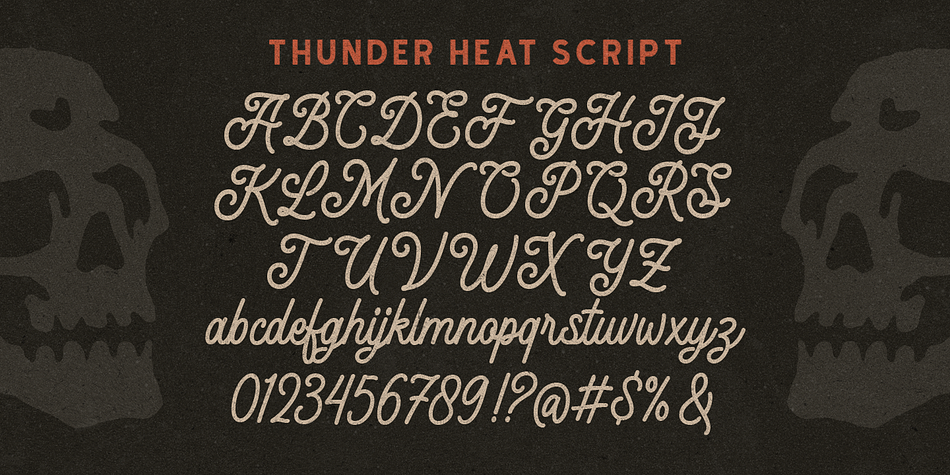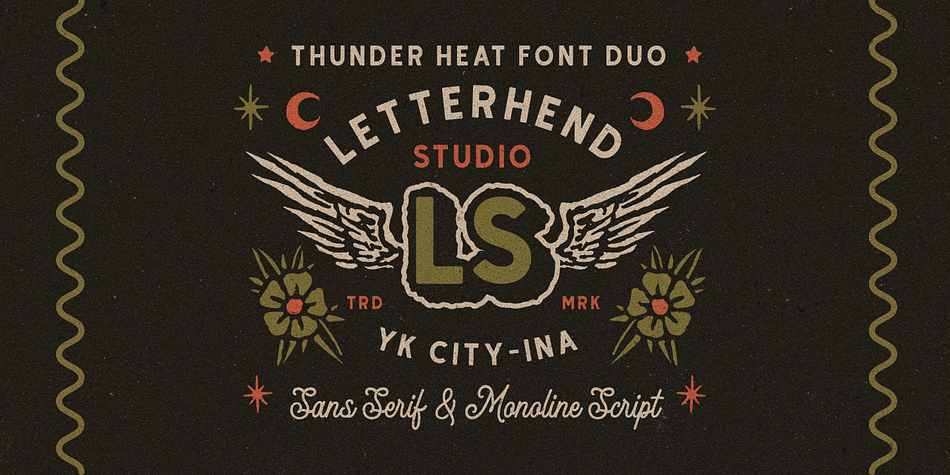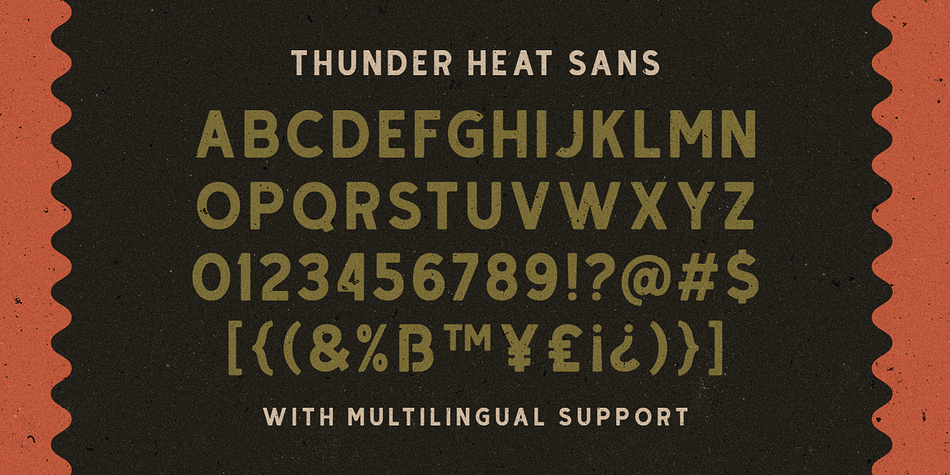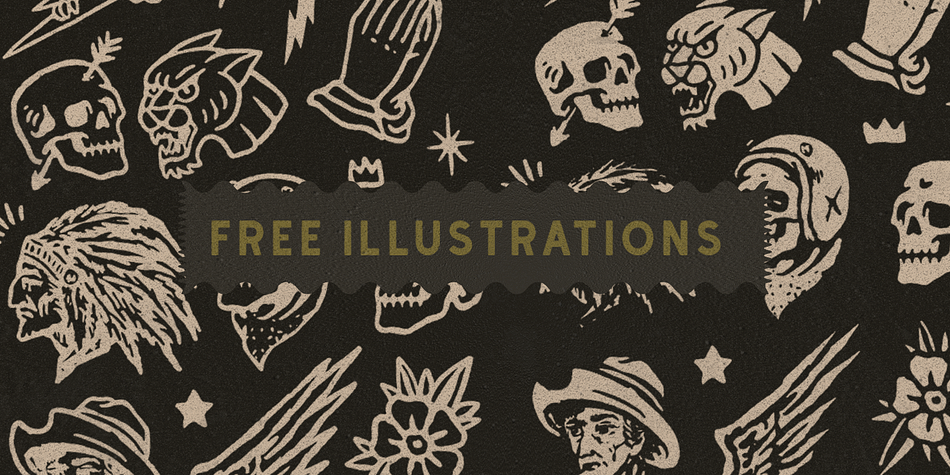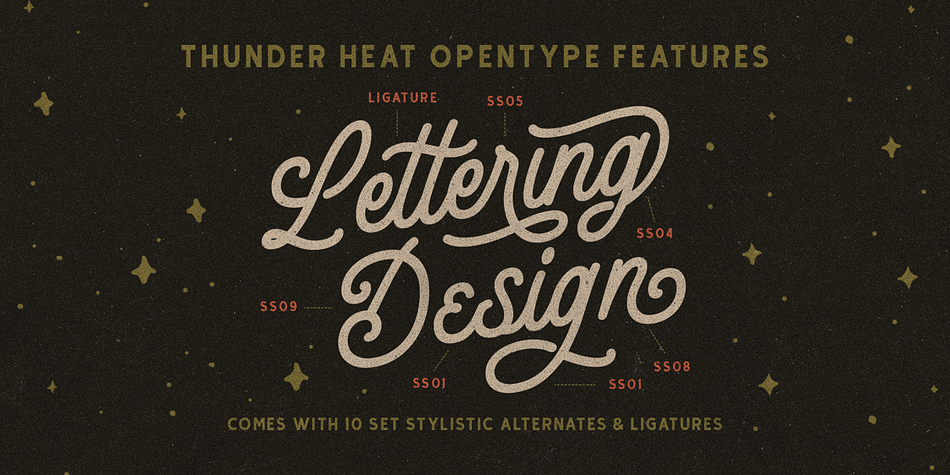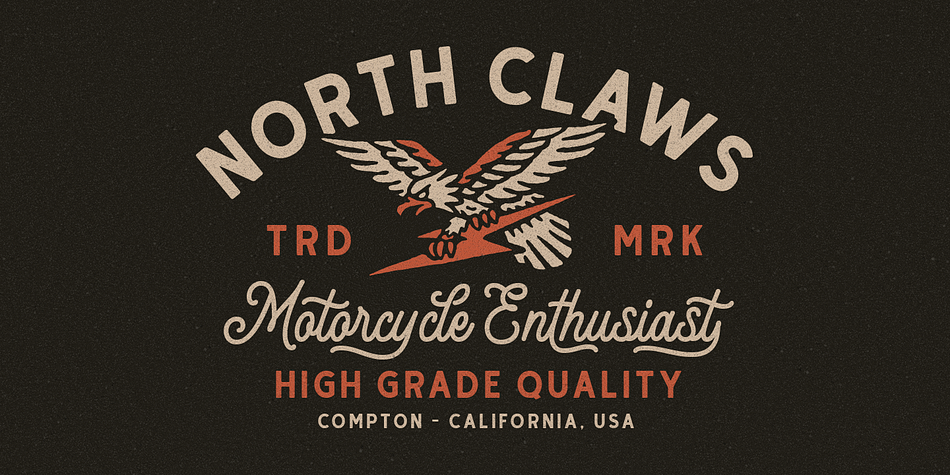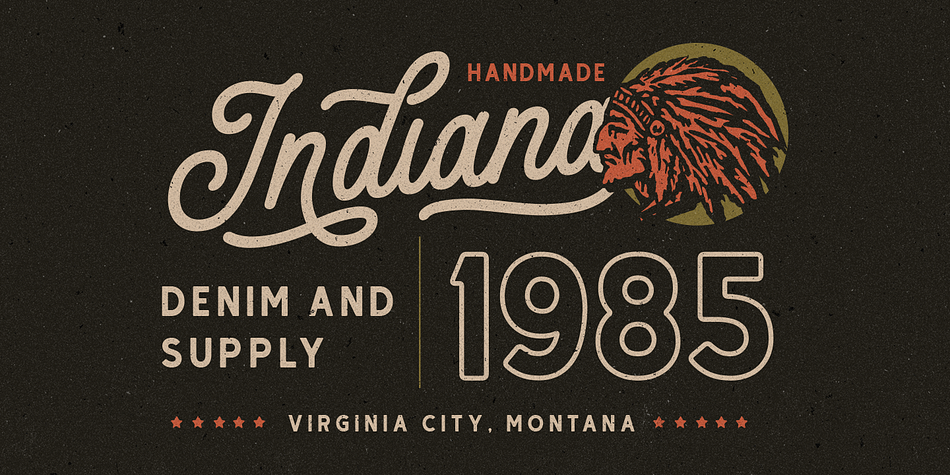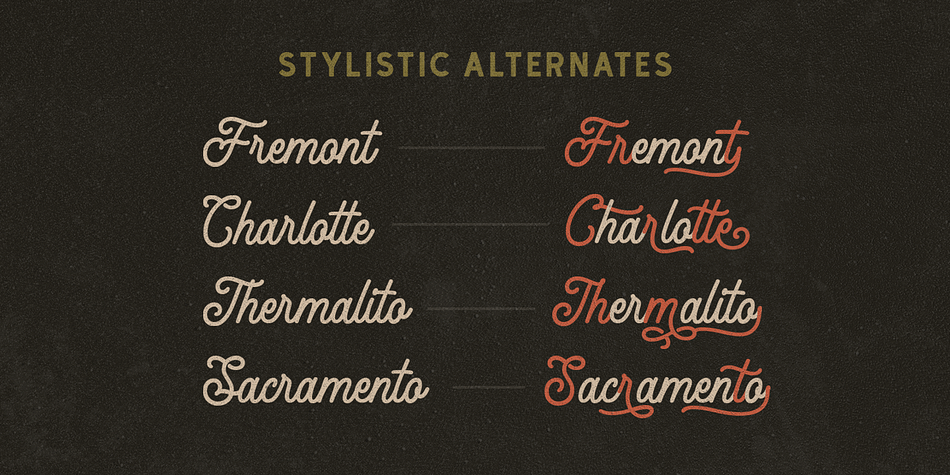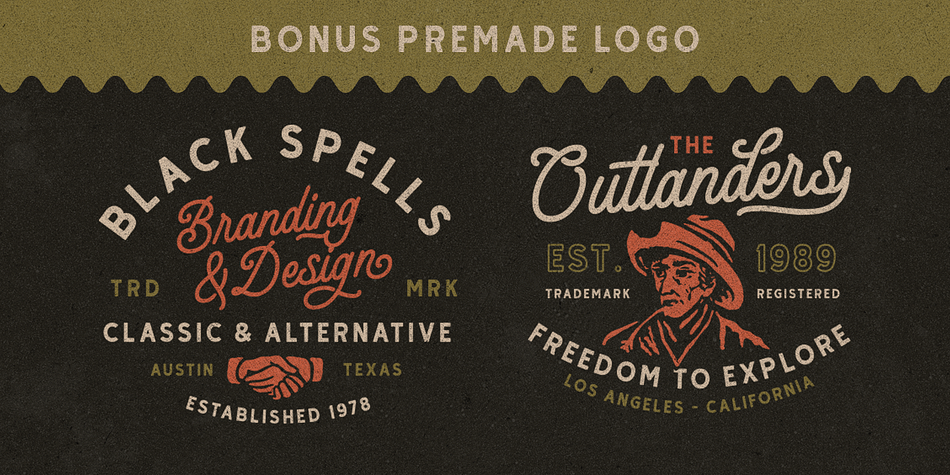
Thunder Heat
Designed by Hendry Juanda, Thunder Heat is a display sans and script font family. This typeface has two styles and was published by Letterhend Studio.
Thunder Heat is a monoline font duo with classic looks. You can play around to fit the form using sans serif and script mode. It comes with illustration bonus and premade logo. This font perfectly made to be applied especially in logo, and the other various formal forms such as invitations, labels, logos, magazines, books, greeting / wedding cards, packaging, fashion, make up, stationery, novels, labels or any type of advertising purpose.
- Alternates/Ligatures
Styles Display Sans, Script